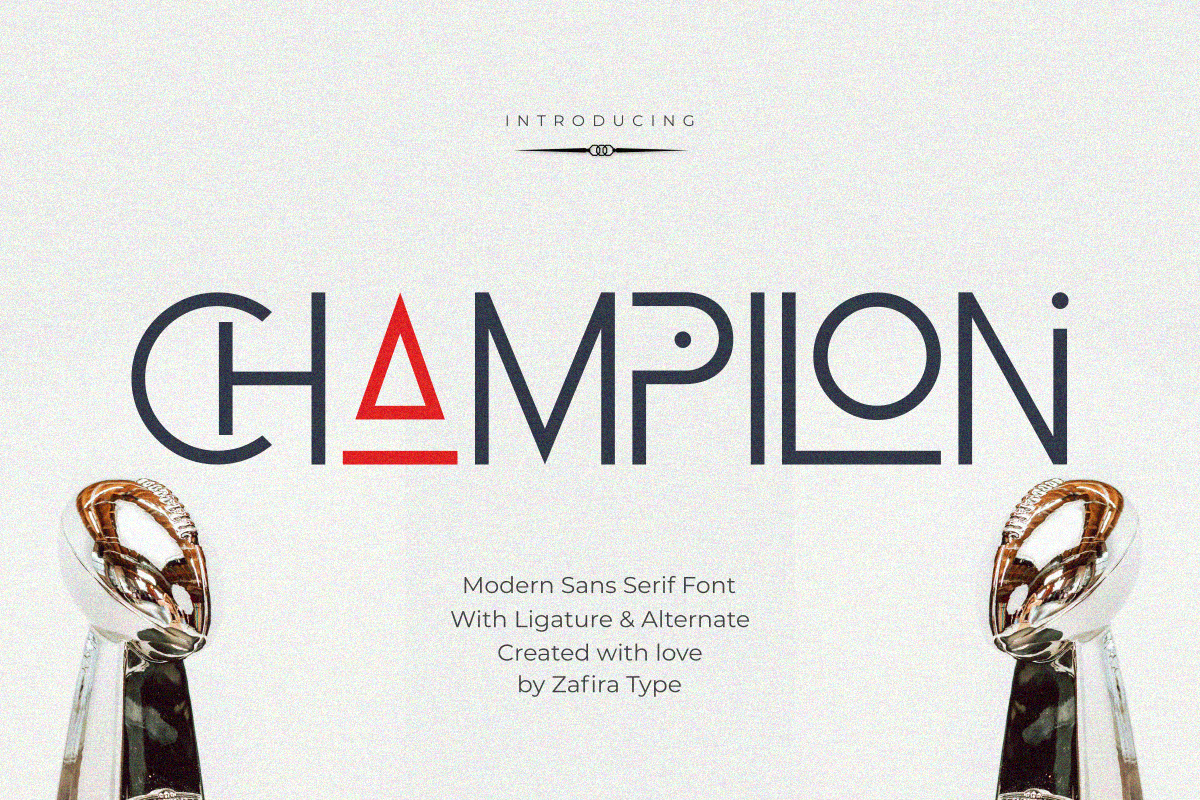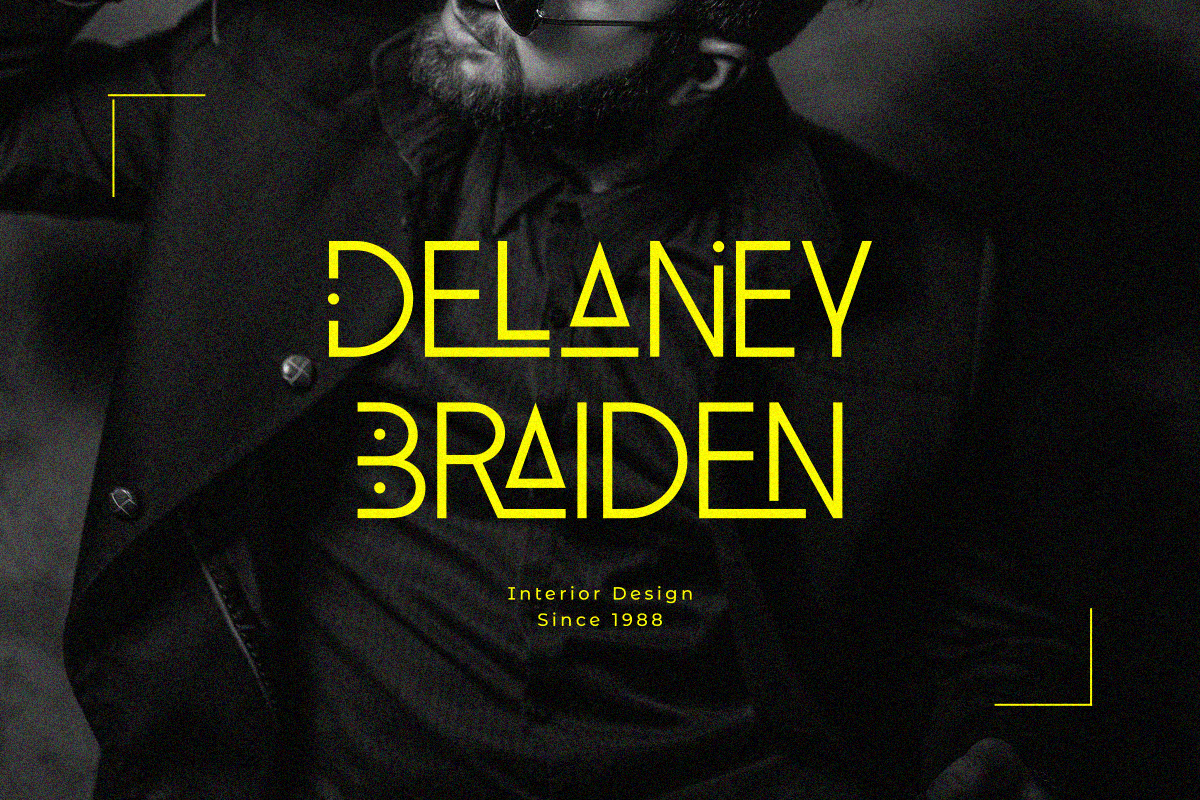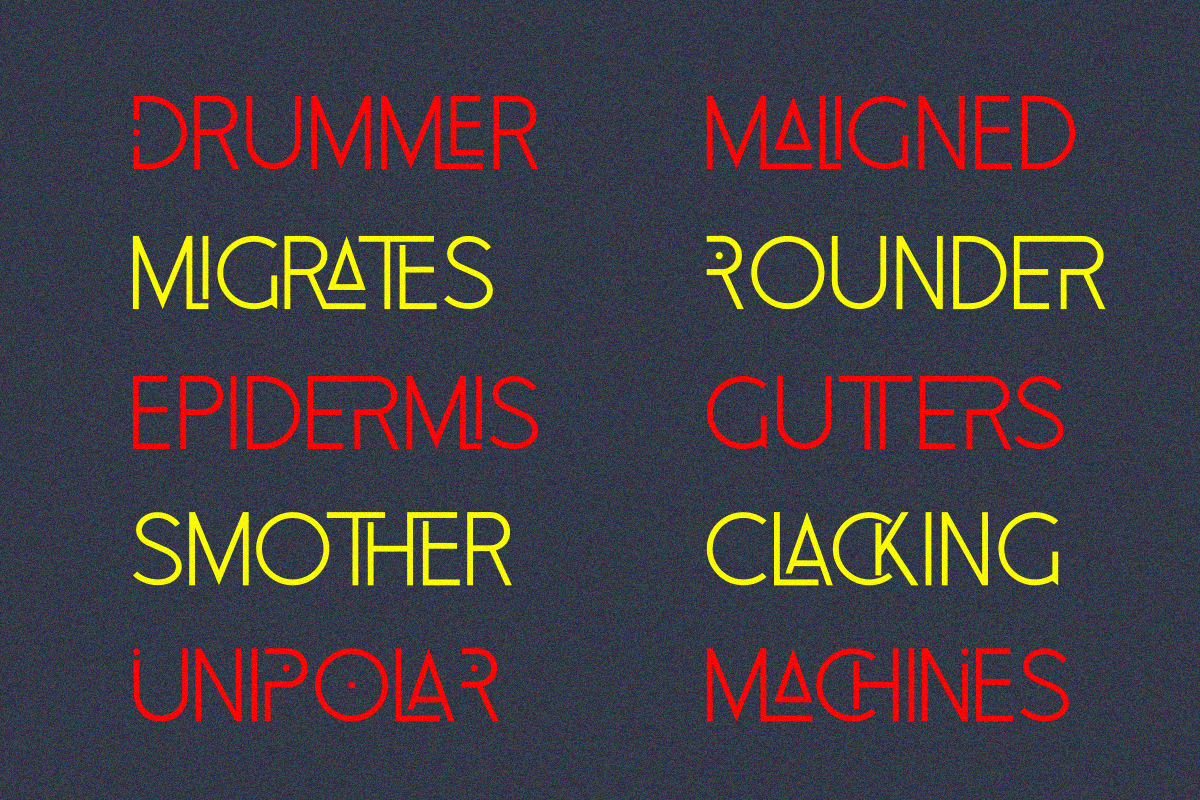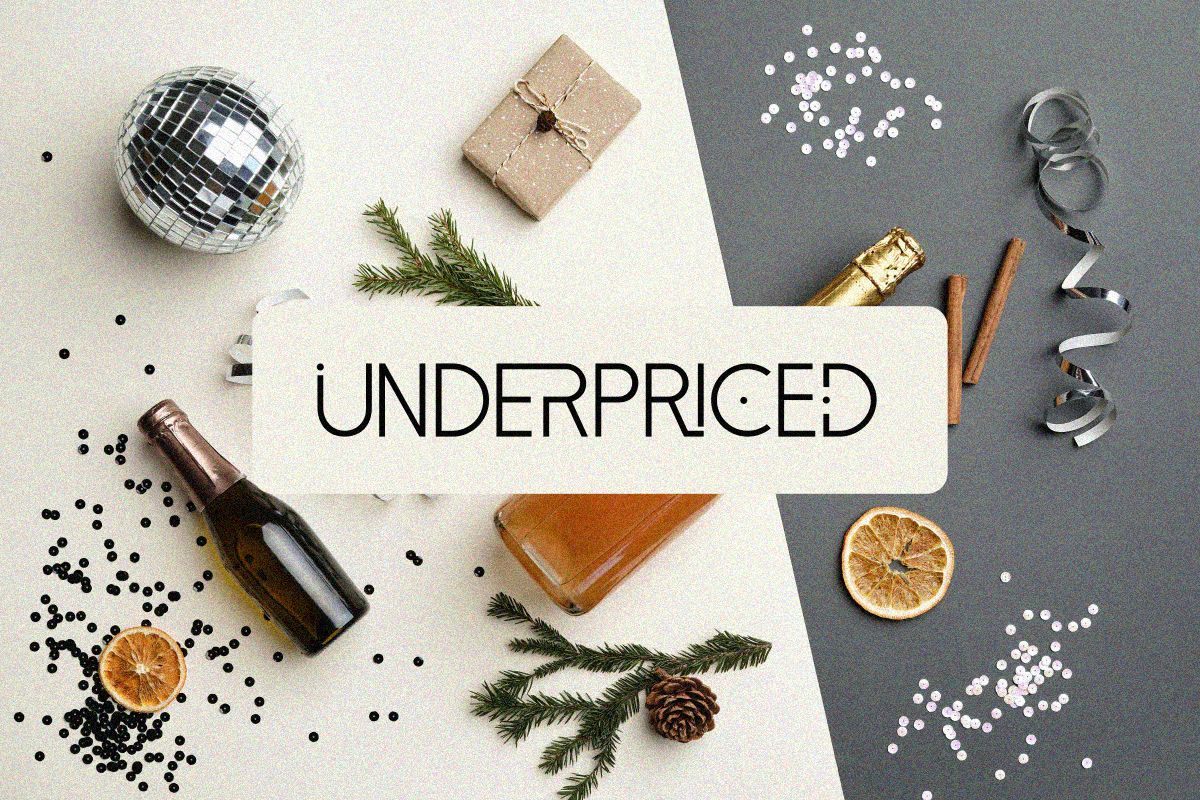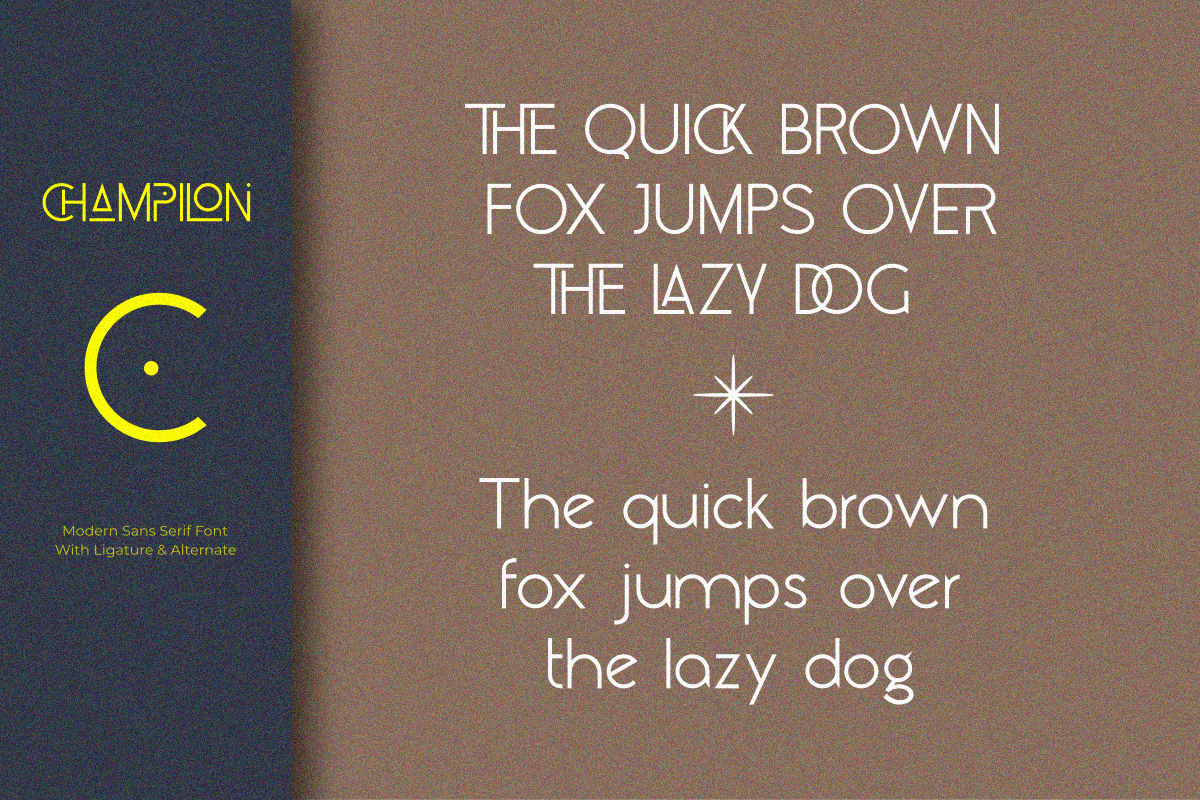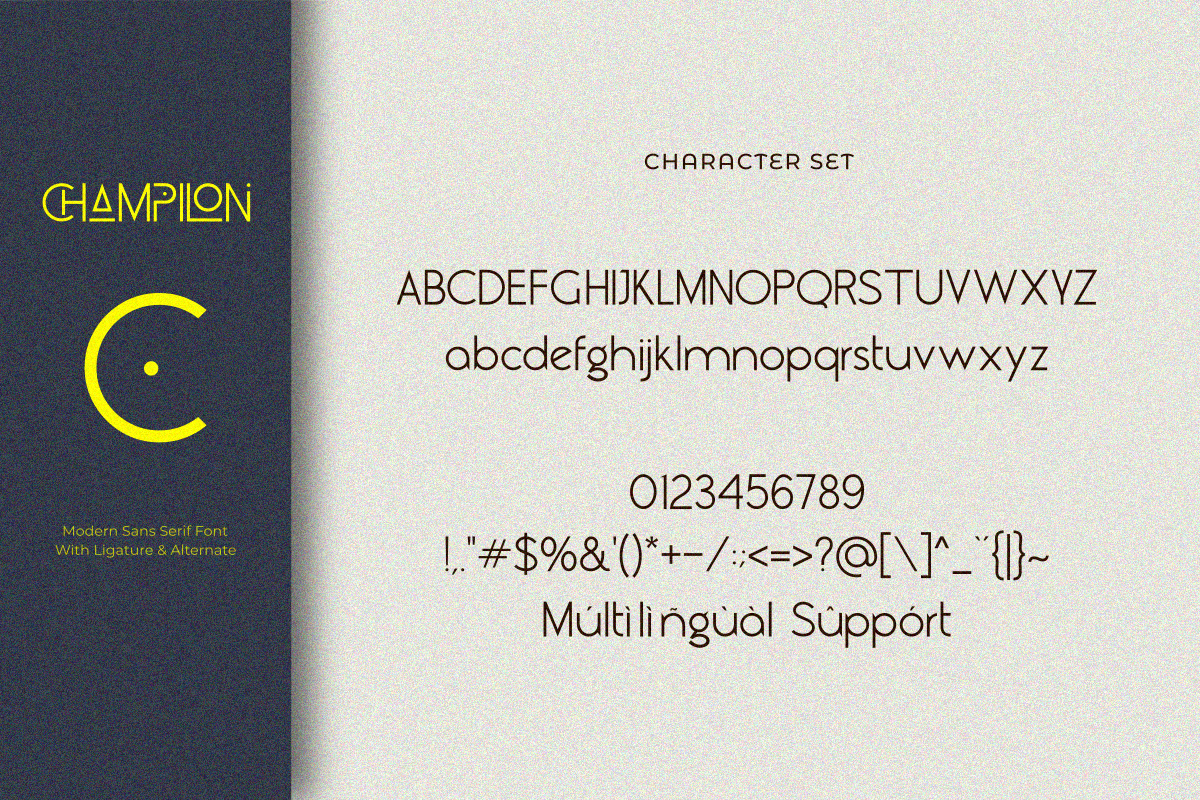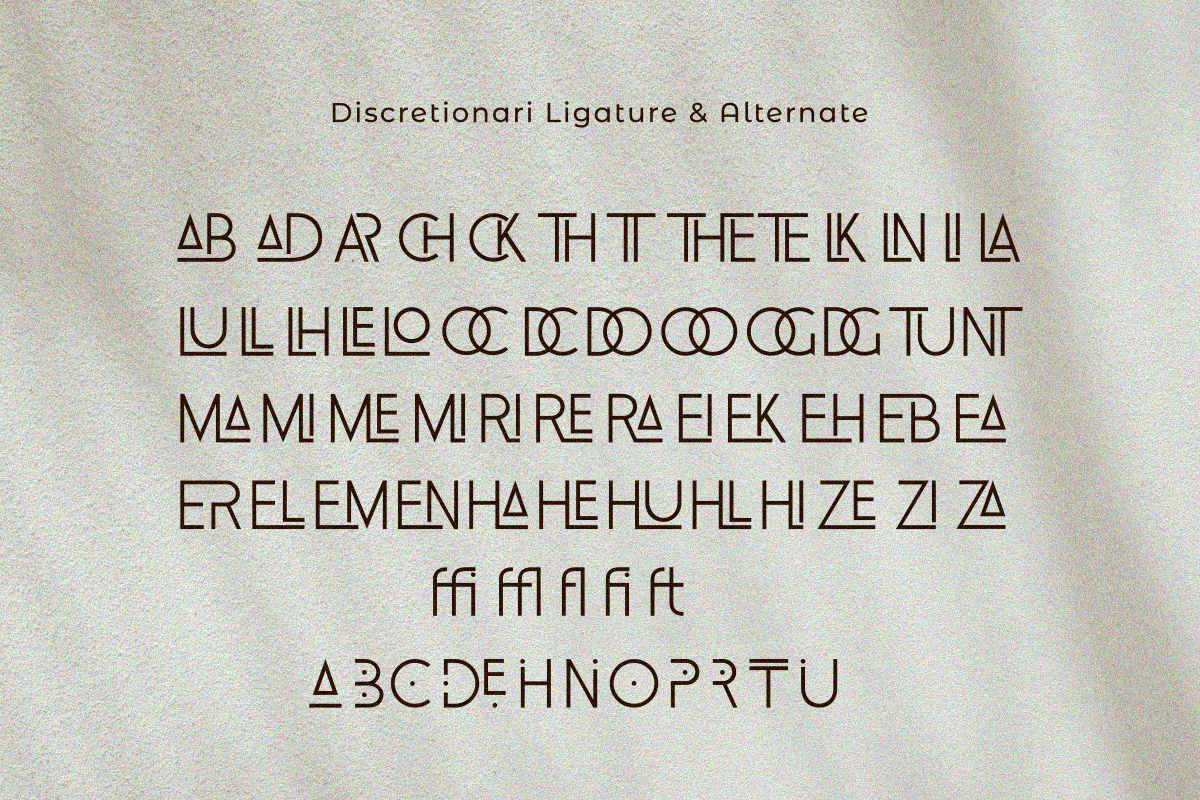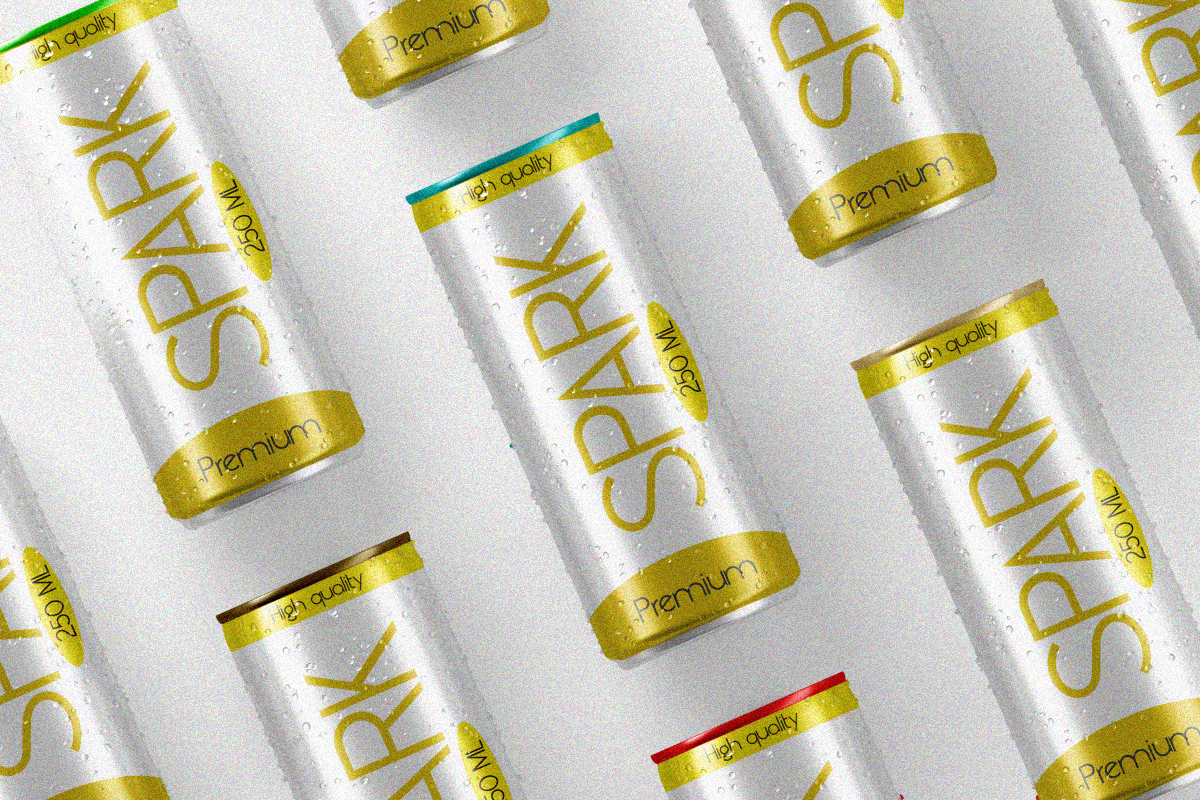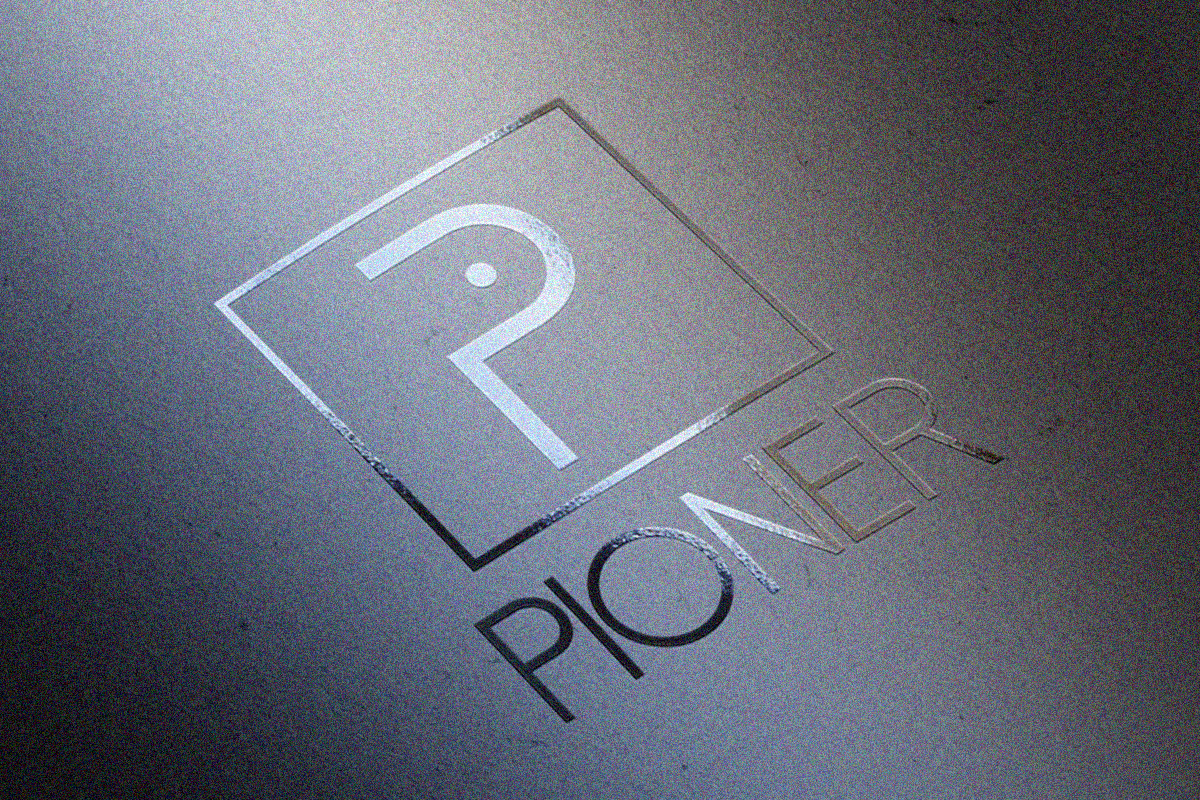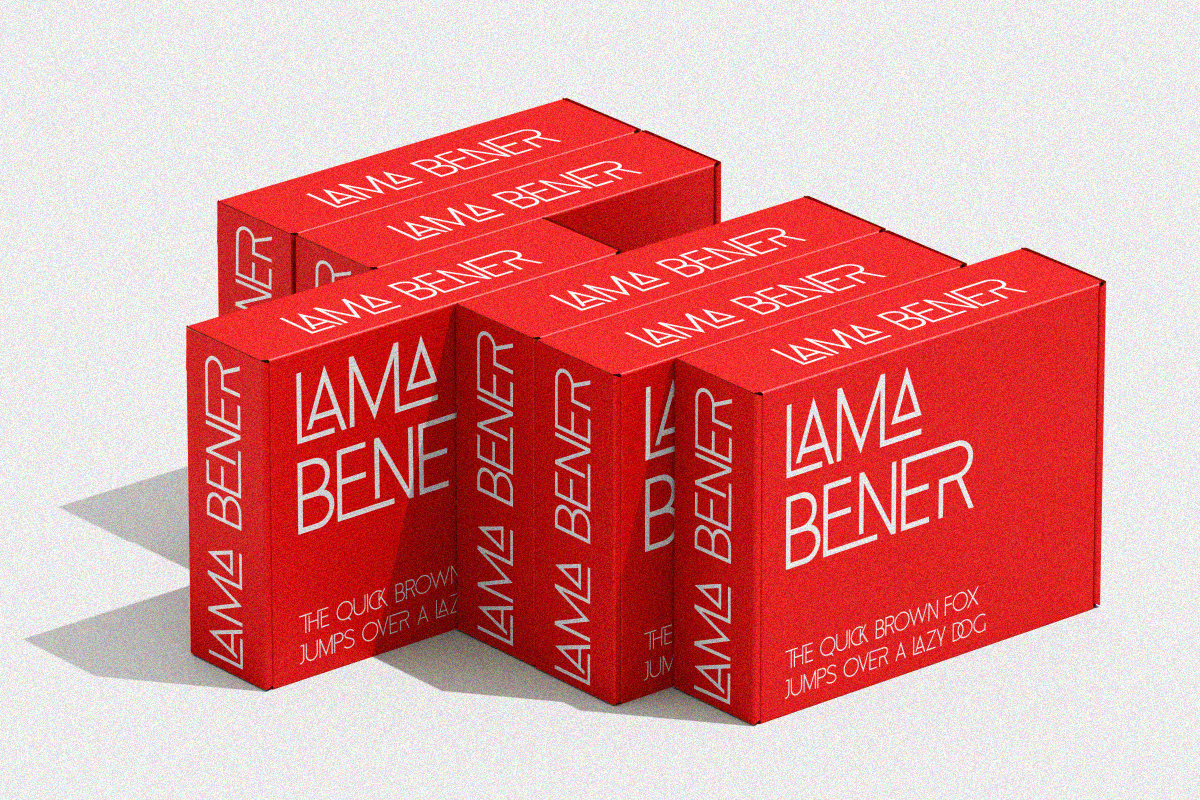
Champilon
Champilon is a modern sans-serif font with a clean and elegant design. Featuring smooth ligatures and Alternate, it adds a contemporary touch to any design. Perfect for branding, print materials, and more, Champilon offers a professional and highly readable look.